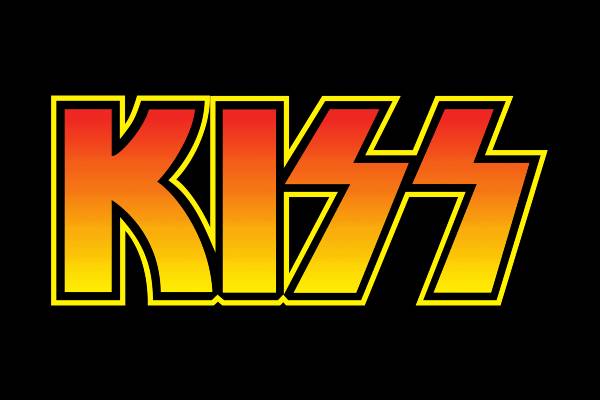
Known for face paint, theatrical costumes, and explosive over the top live performances, KISS became one of rock music's most recognizable bands. The group's classic lineup included Paul Stanley, Gene Simmons, Ace Frehley, and Peter Criss. Famous songs include Rock and Roll All Nite, Detroit Rock City, and I Was Made for Lovin' You.
The dramatic lettering associated with the KISS logo can be recreated with a fan-based typeface called Die Nasty. It was designed and created by the team at Typodermic Fonts.
Heavy strokes, sharp angles, and mirrored letterforms give the logo its powerful stage presence. The metallic finish and lightning-bolt shapes create a bold glam-rock style that matches the band’s costumes, makeup, and theatrical performances. This is one of the most recognisable music / band logos and lettering of all time.